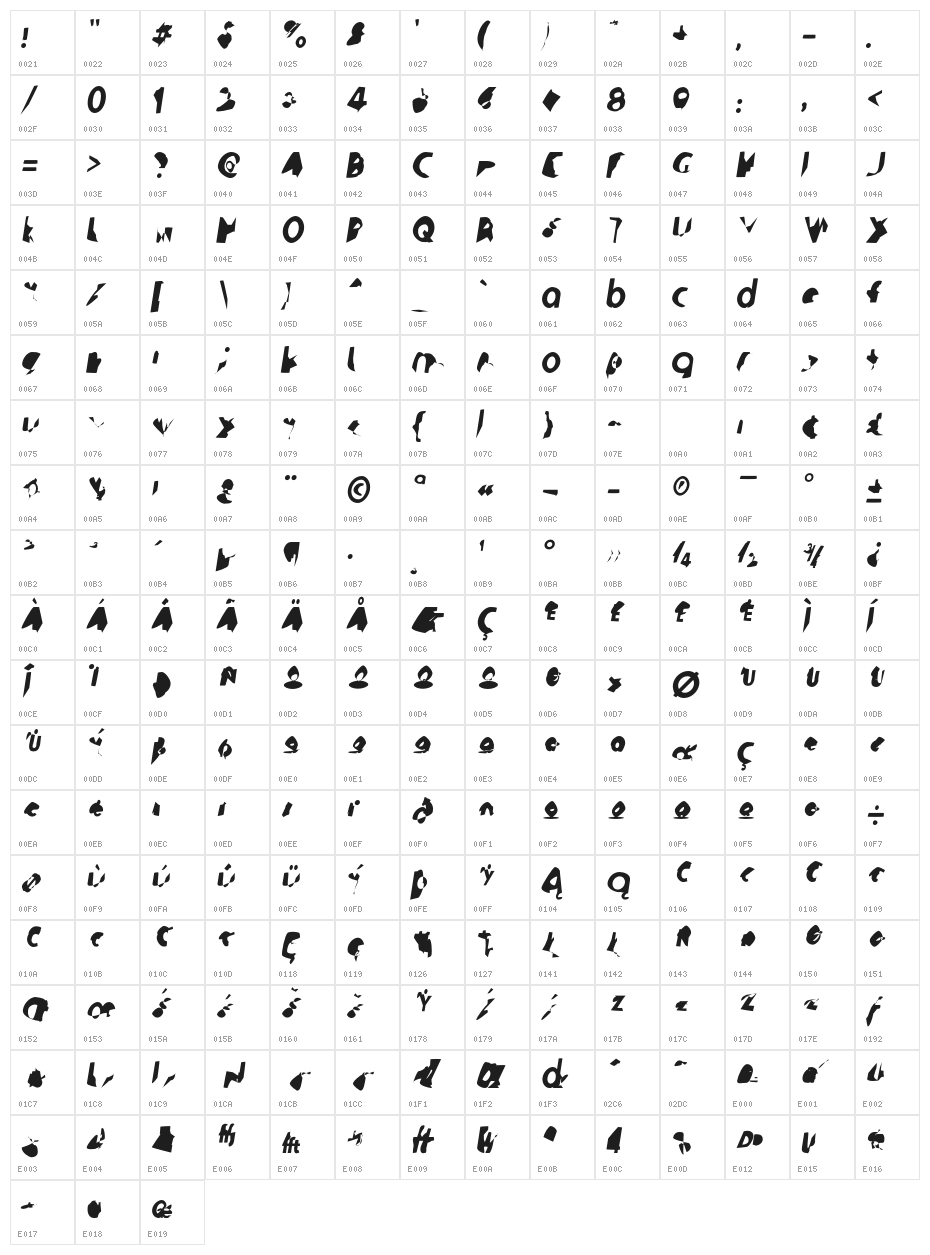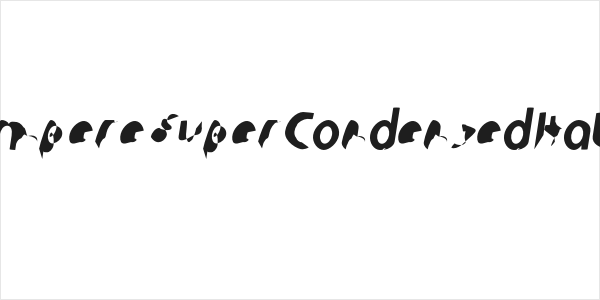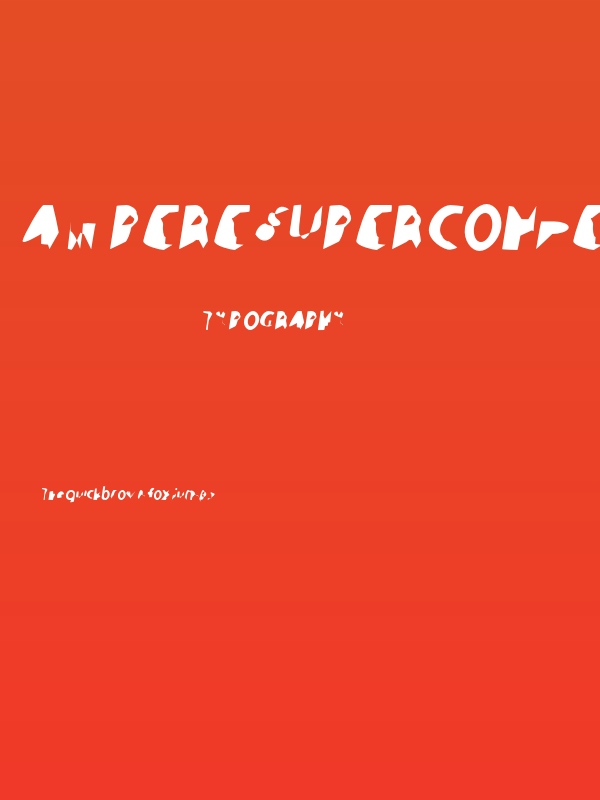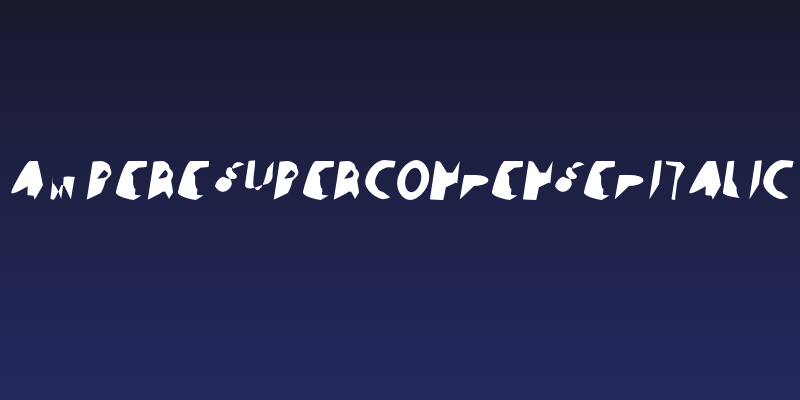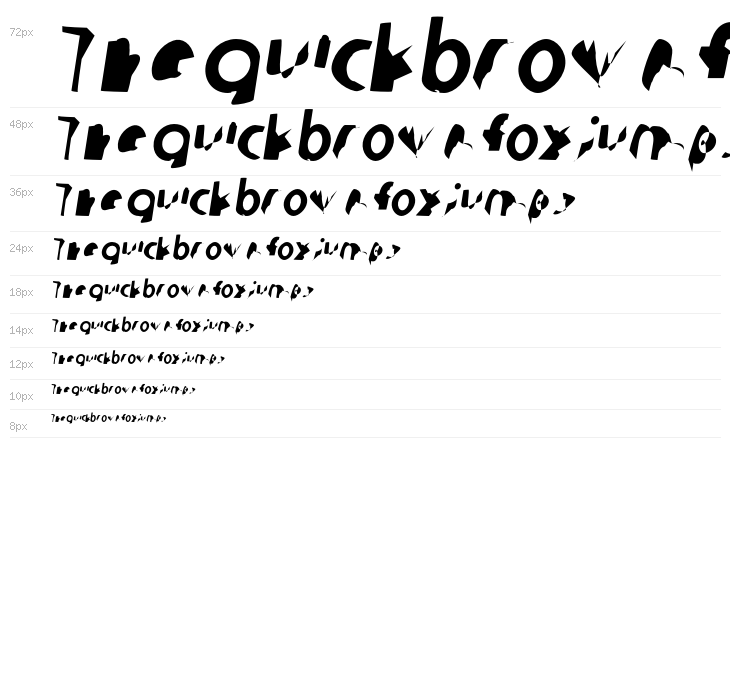
Ampere SuperCondensed Italic Font
Ampere SuperCondensed Italic Description
This font features a highly stylized and abstract design, characterized by its fragmented and distorted letterforms. The characters are heavily condensed and italicized, creating a sense of dynamic movement and energy. The strokes are bold and irregular, with sharp angles and unexpected cuts that give the font a unique and edgy appearance. This style is not suitable for readability in long texts but makes a strong visual impact in short, bold statements or artistic compositions. The font's unconventional structure challenges traditional typography norms, making it ideal for creative and experimental projects.
Overall StyleModern, Experimental
Use CaseLogos, Headlines, Artistic compositions
Proposed ProjectsIdeal for avant-garde posters, album covers, modern art installations, and experimental graphic design projects.